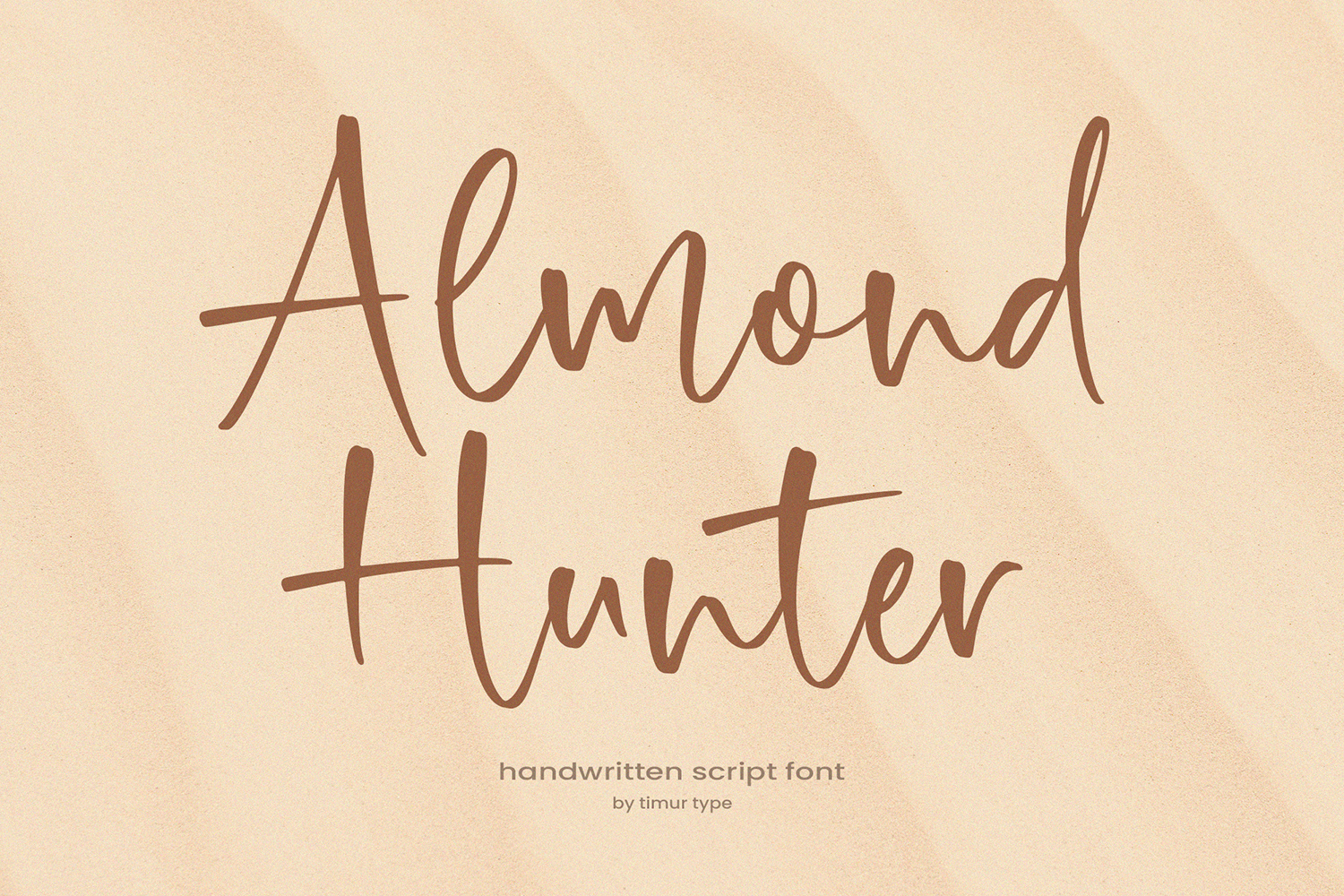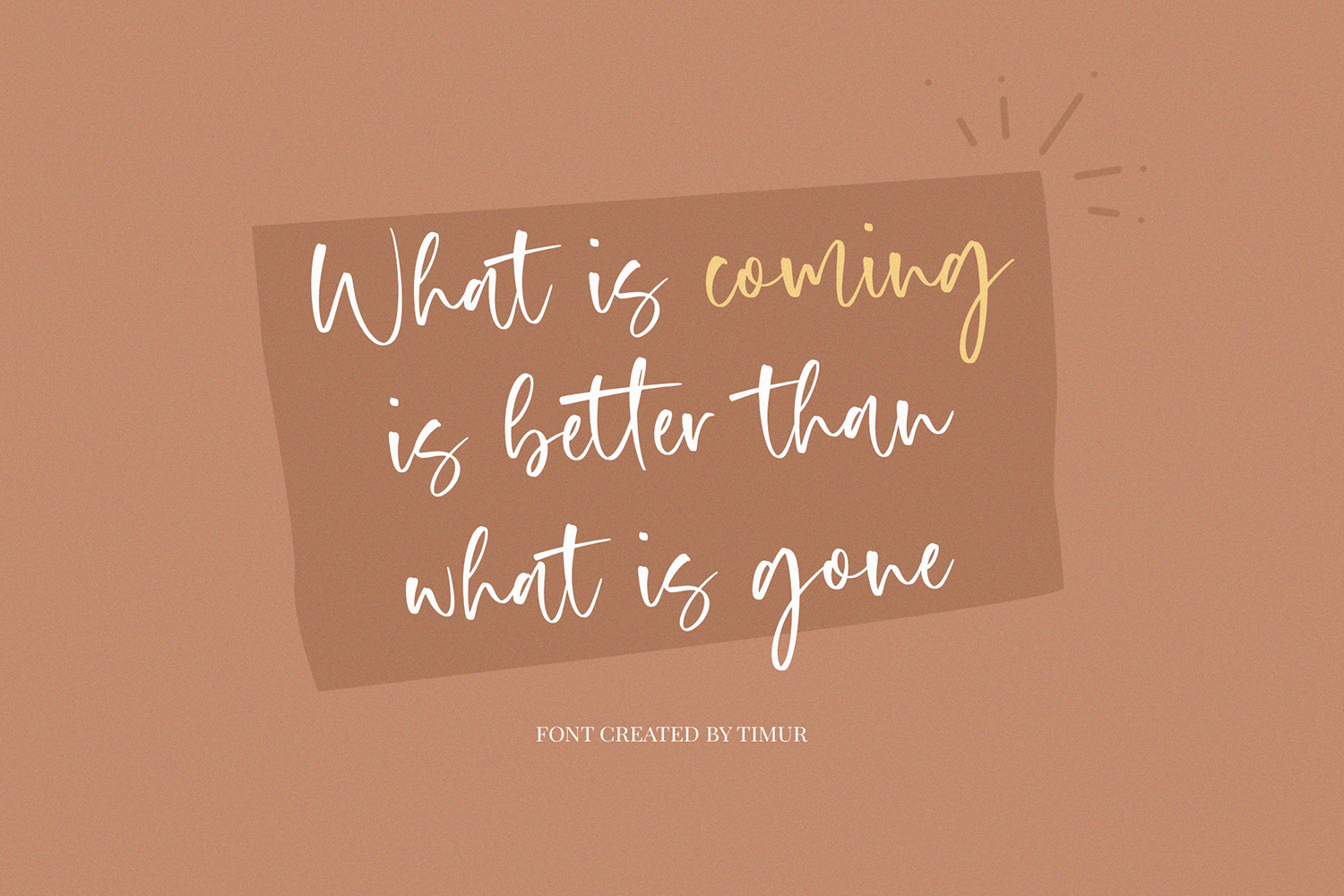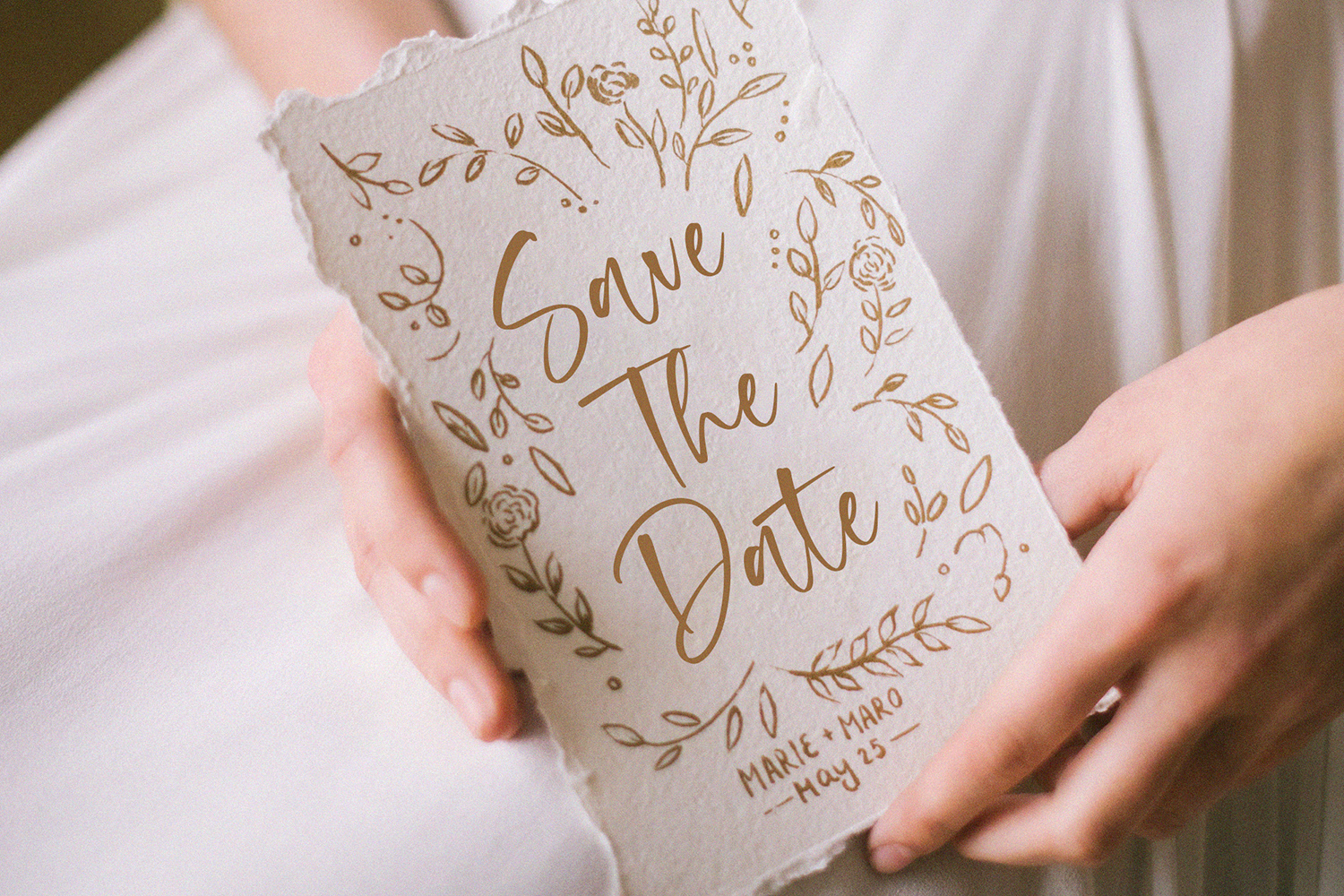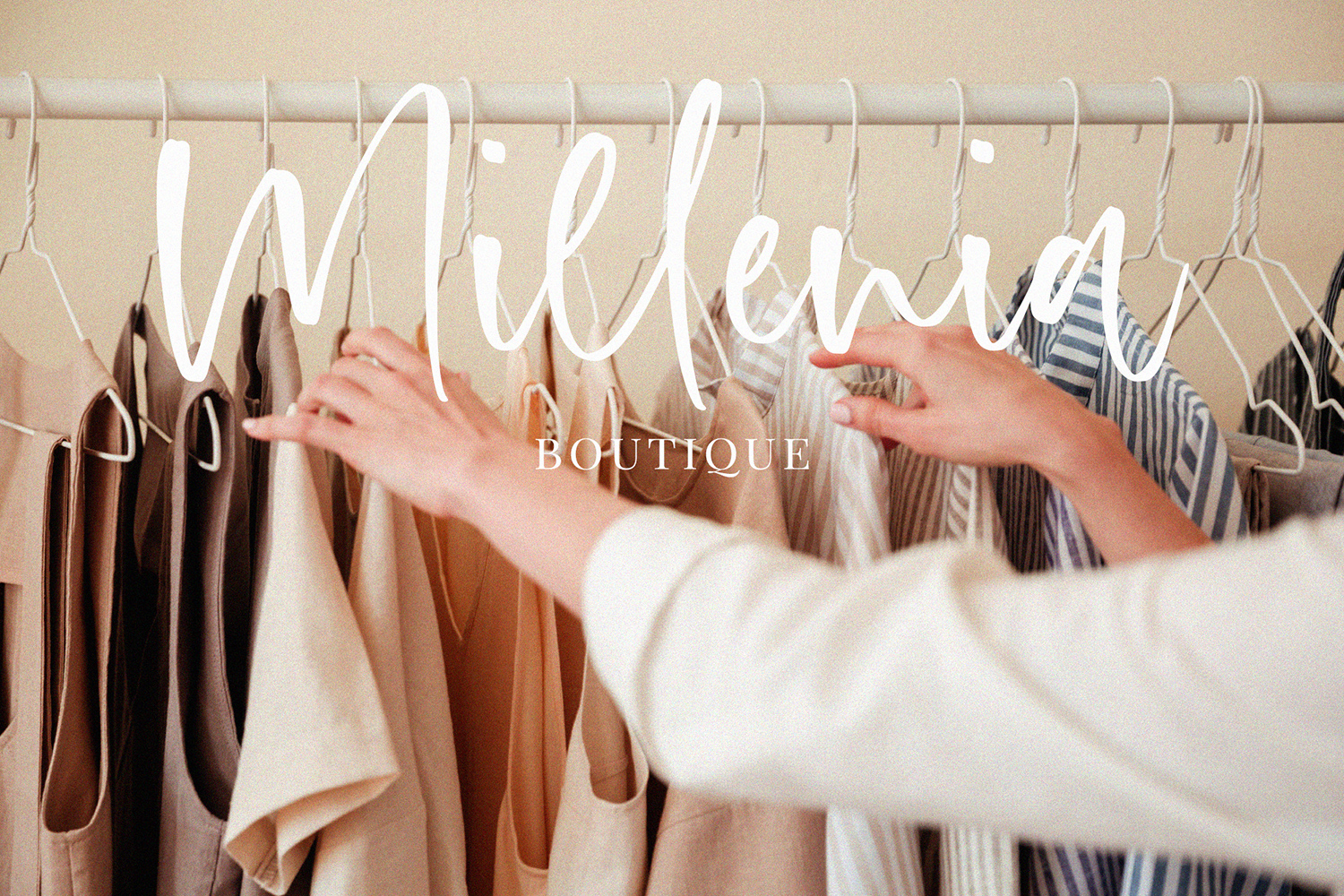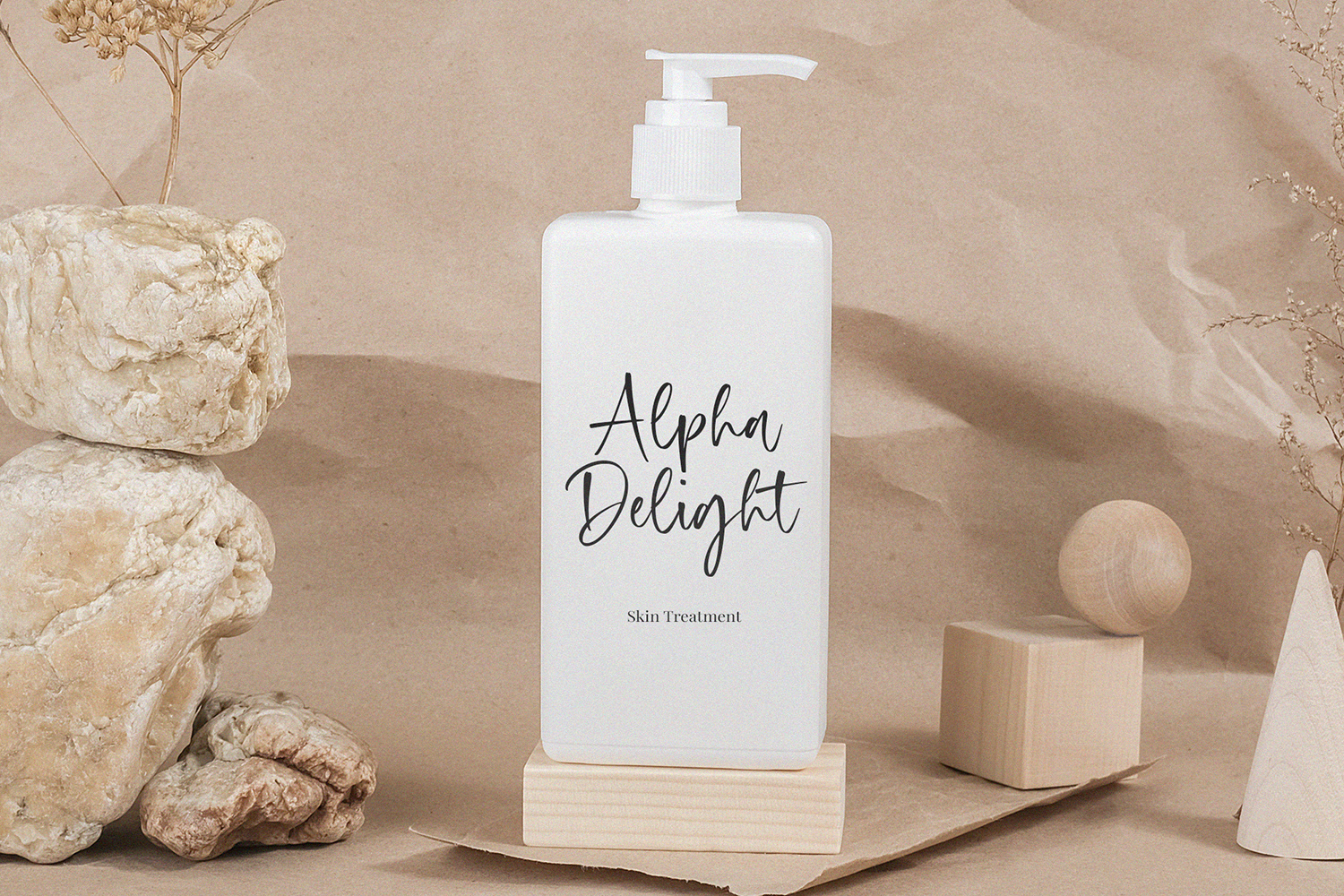
Almond Hunter Free Font
Bring a touch of charm and elegance to your designs with the Handwritten Script Almond Hunter Free Font. This beautiful and versatile font features a unique, flowing script that evokes the timeless allure of hand-written calligraphy. The smooth, curved letters are perfect for adding a personal touch to wedding invitations, social media graphics, logos, and more. Whether you’re a graphic designer, marketer, or just looking to elevate your personal projects, the Handwritten Script Almond Hunter Free Font is a must-have tool in your design arsenal. Download it now and add a touch of sophistication to your work.